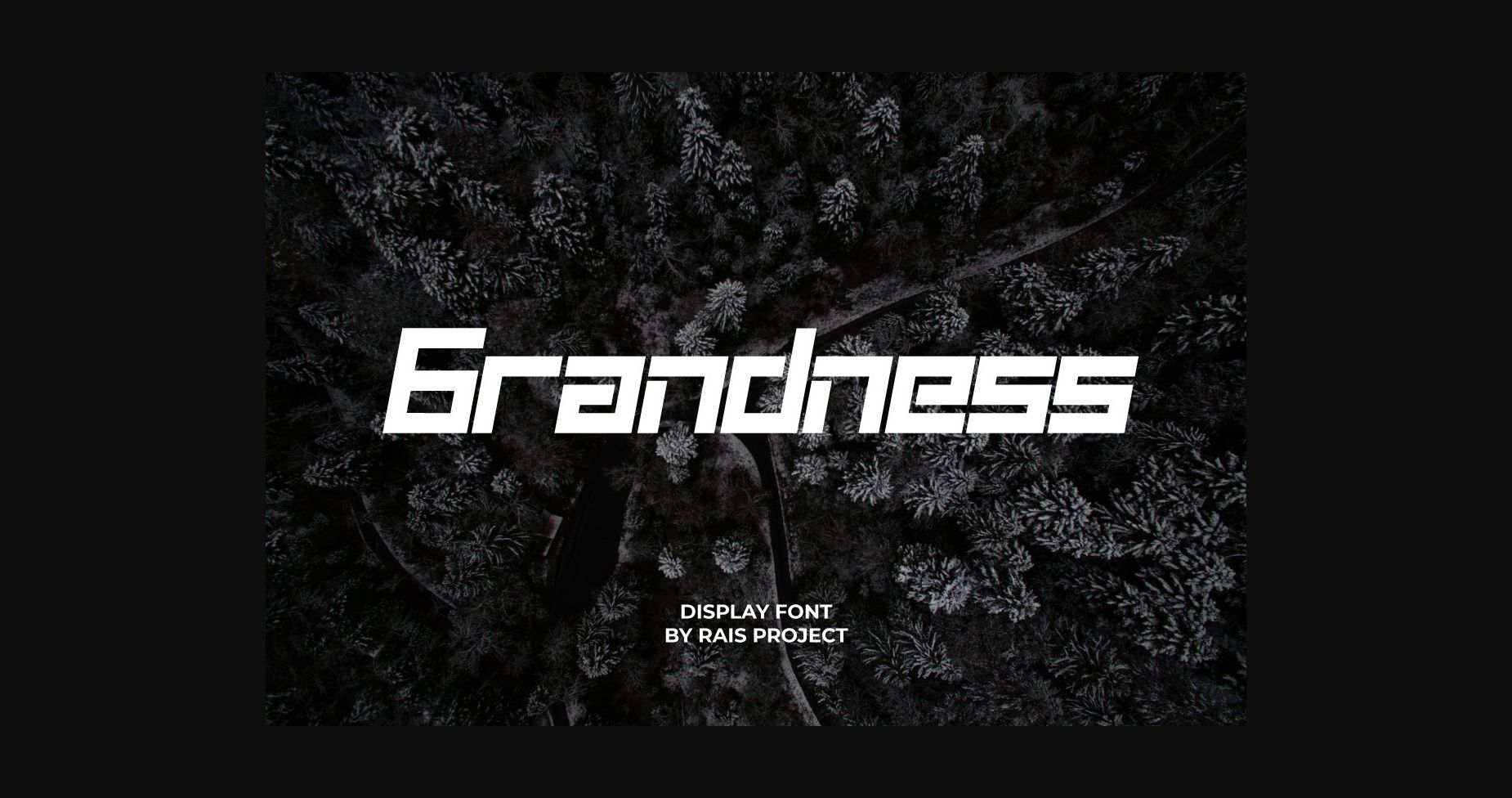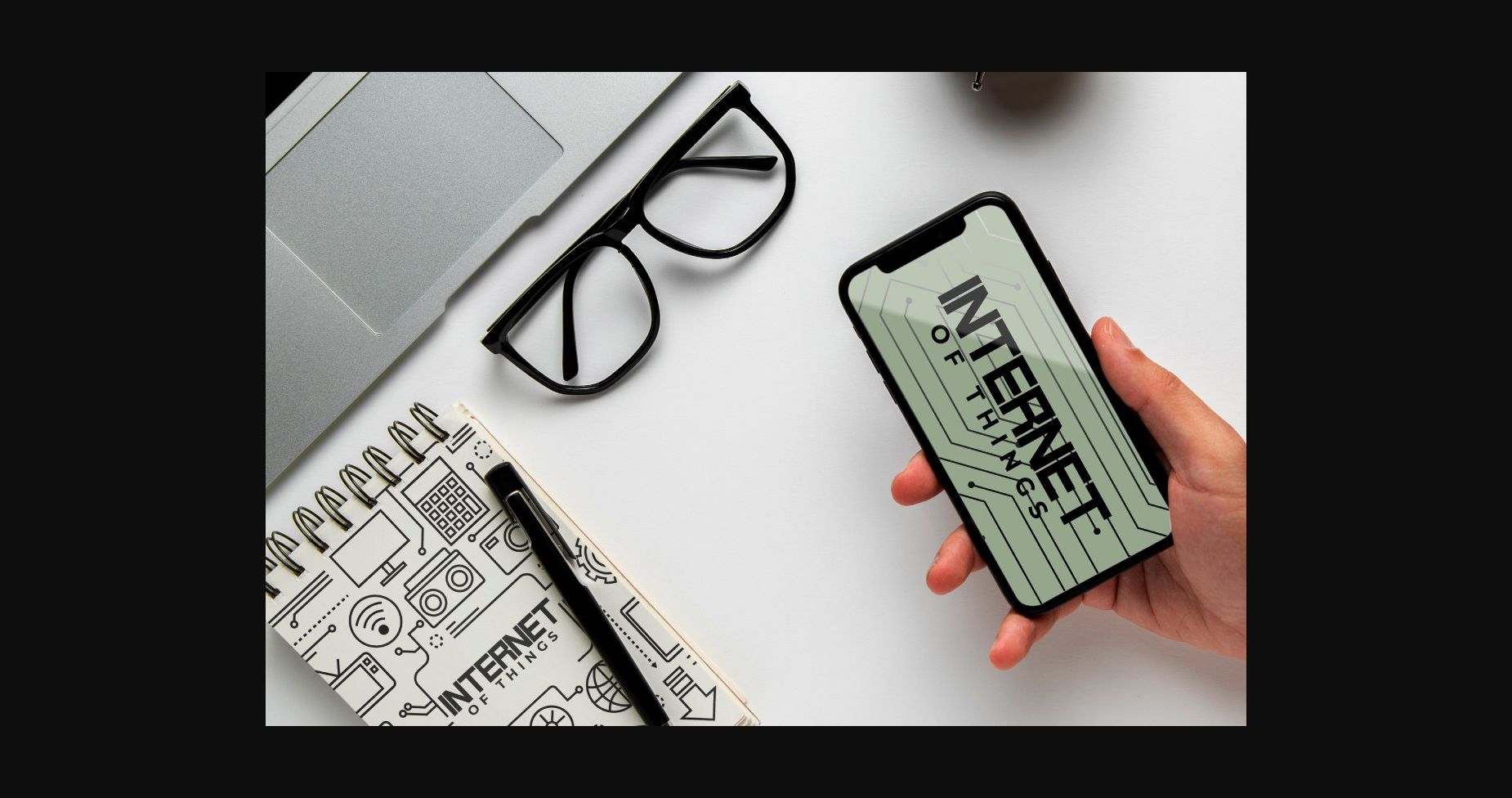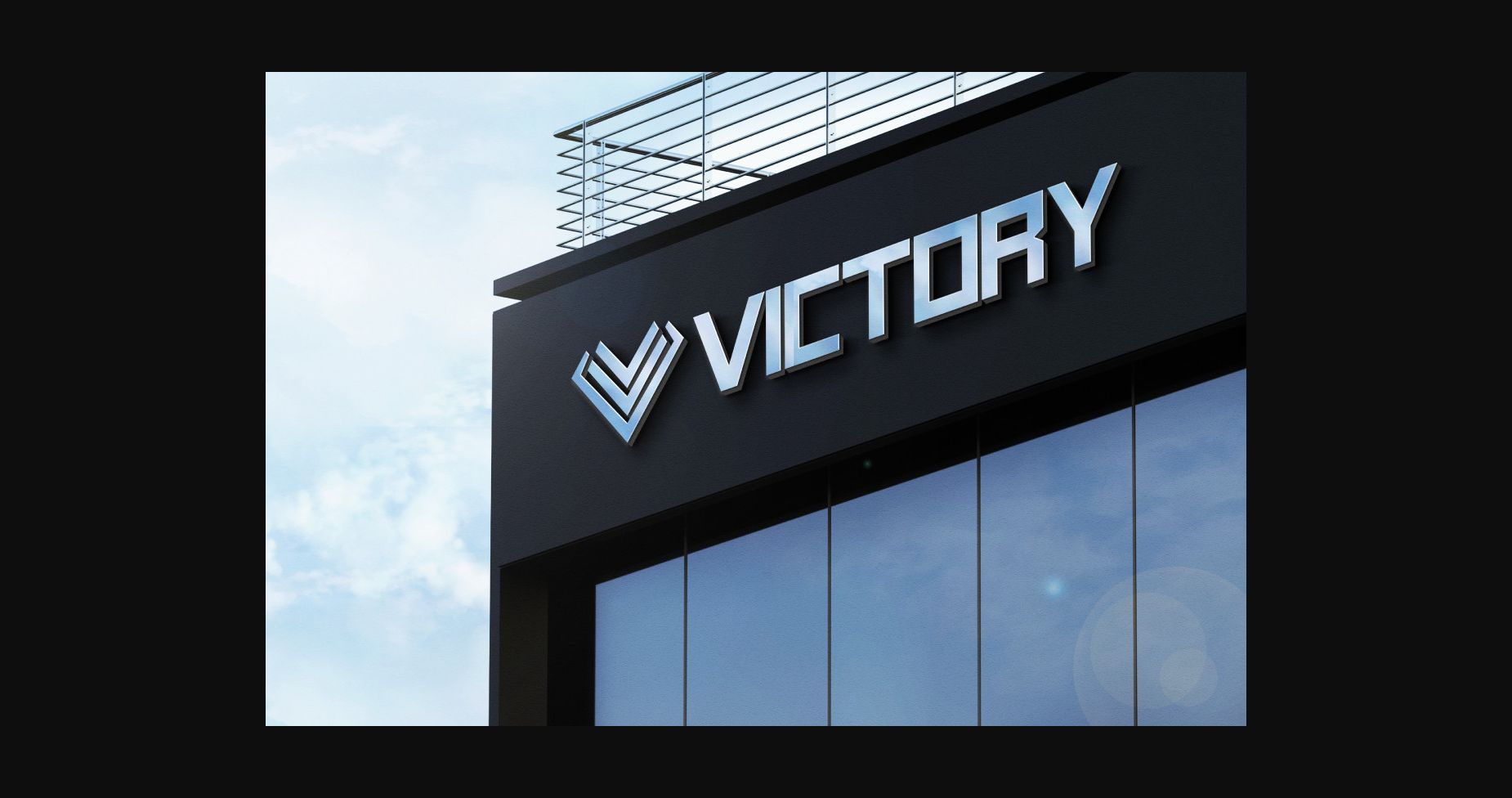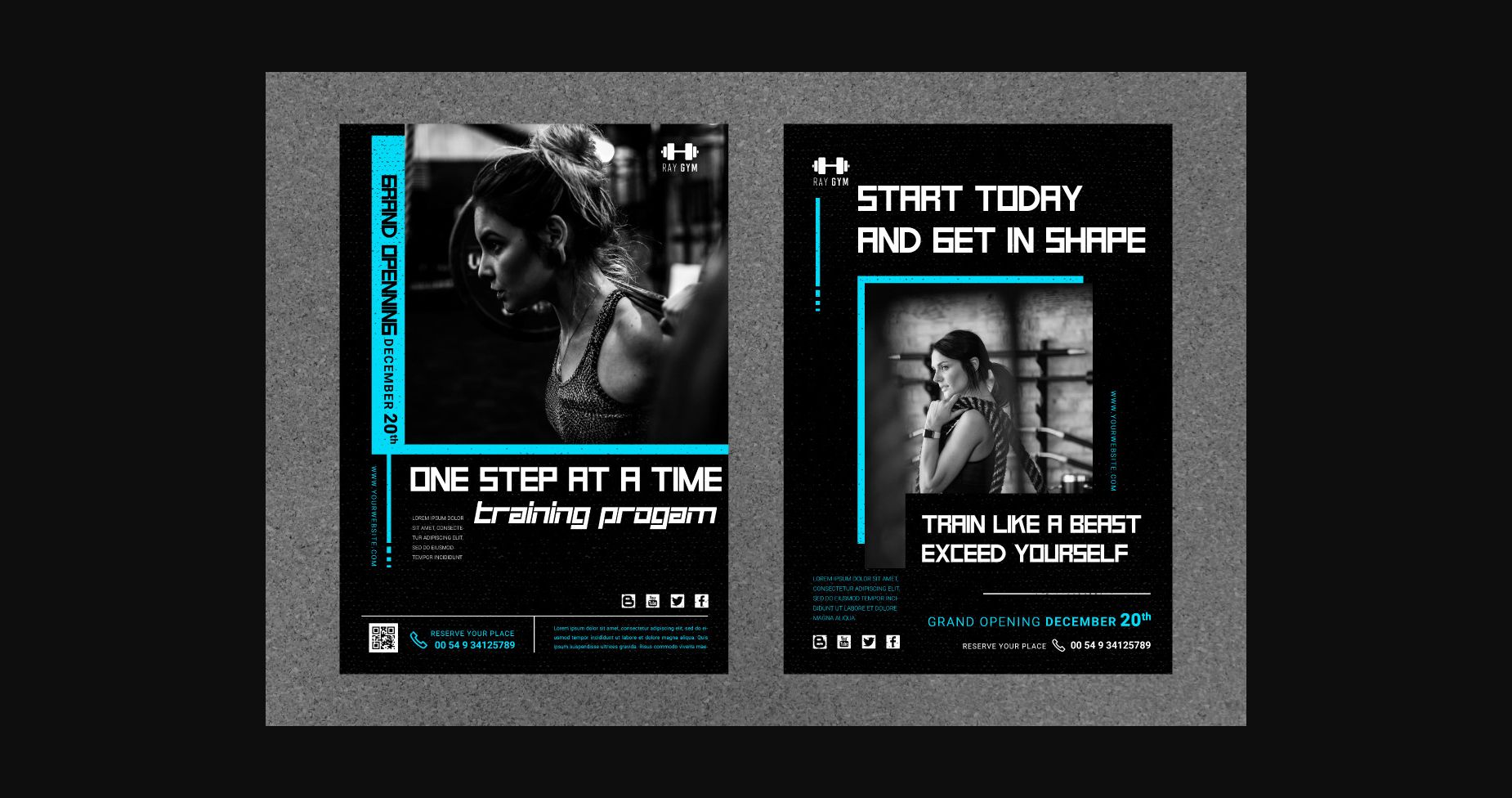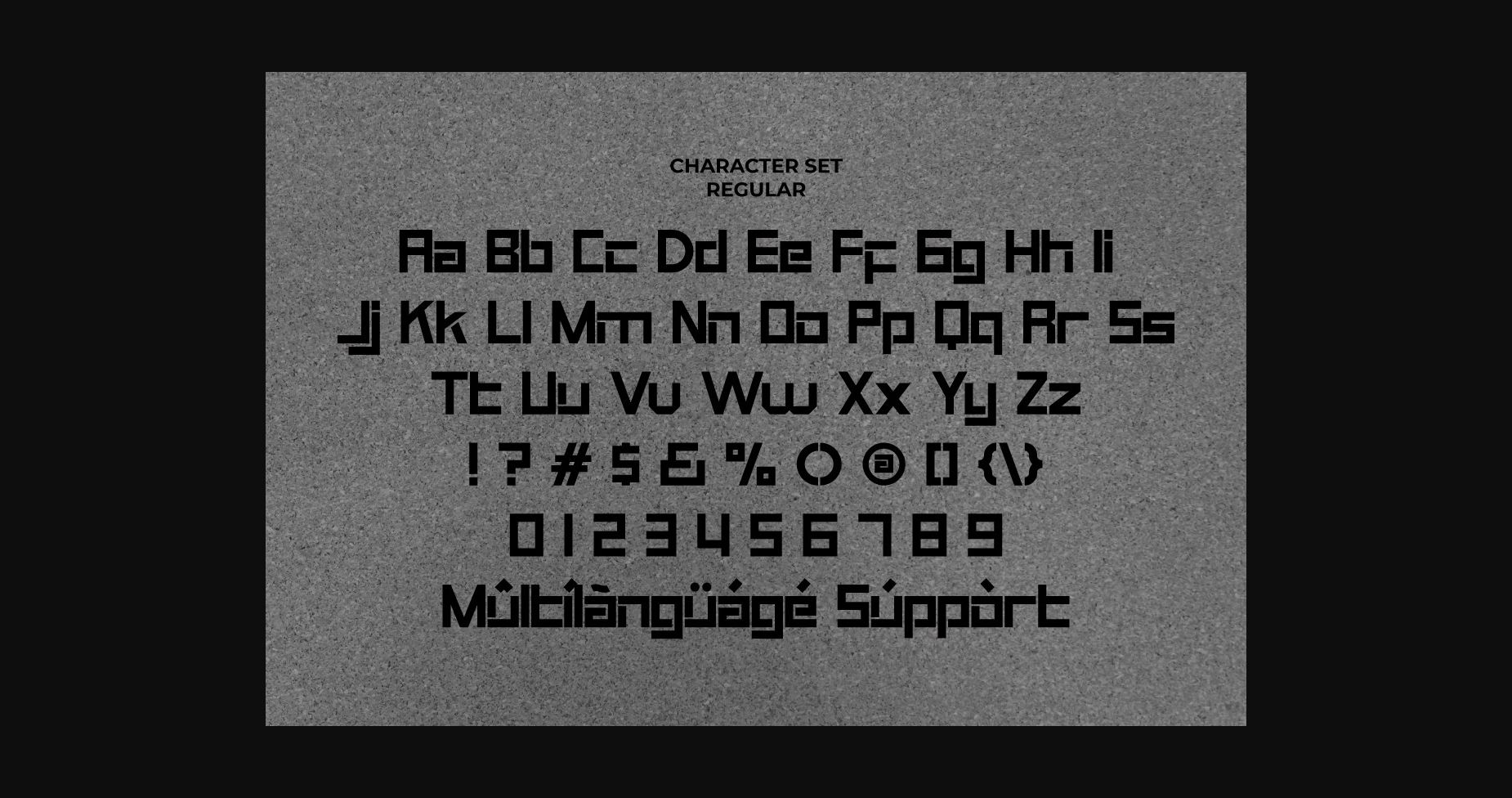
About Grandness Font
Grandness is a modern and sporty sans serif font with a unique shape that is great for sports, technology, games, etc.
Grandness is great for advertising, branding, magazine, signage, stationery, and any projects that need unique minimal typography. The industries for this font are Automotive, Apps, Technology, games, magazines, Sports, etc.